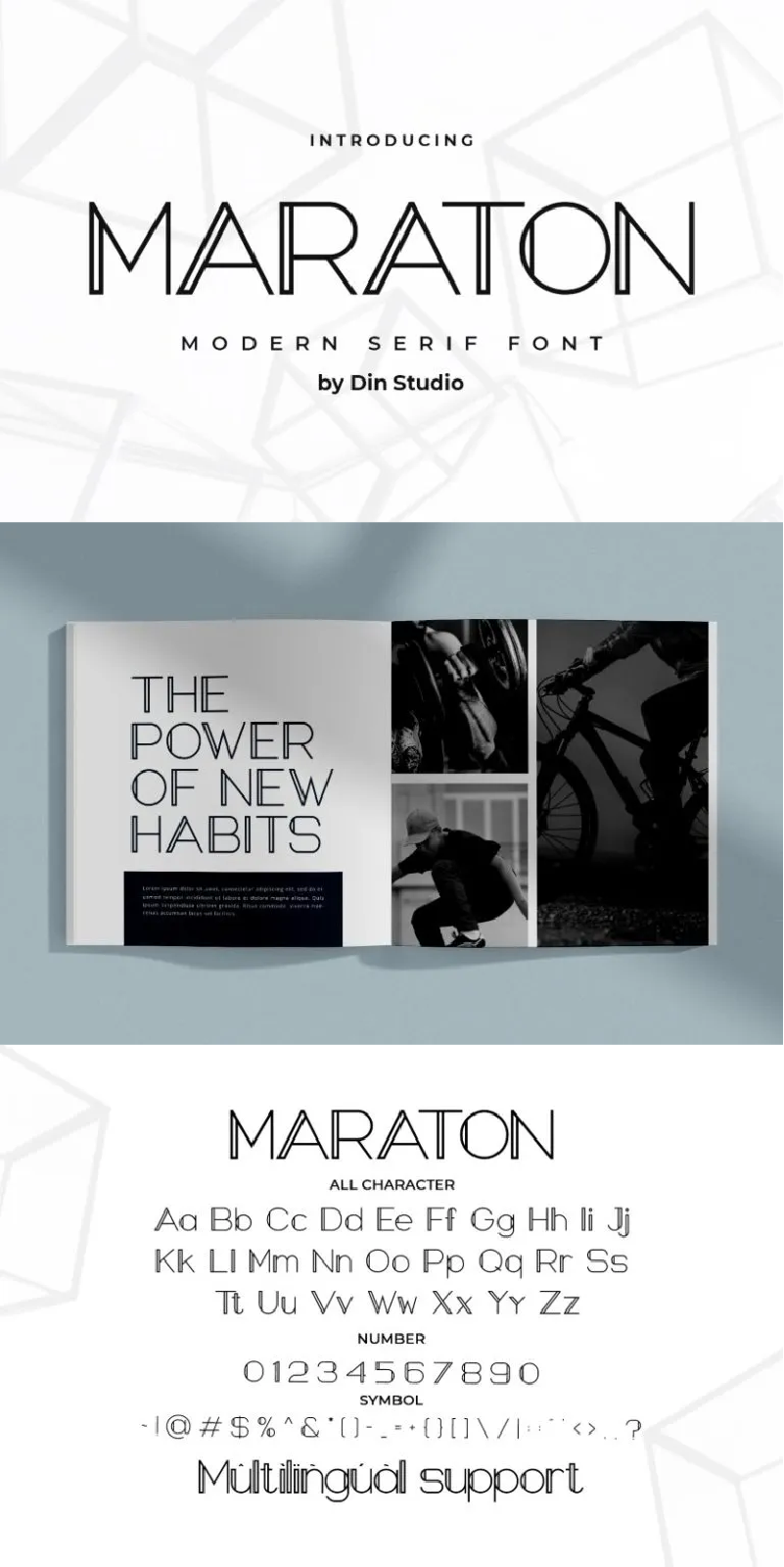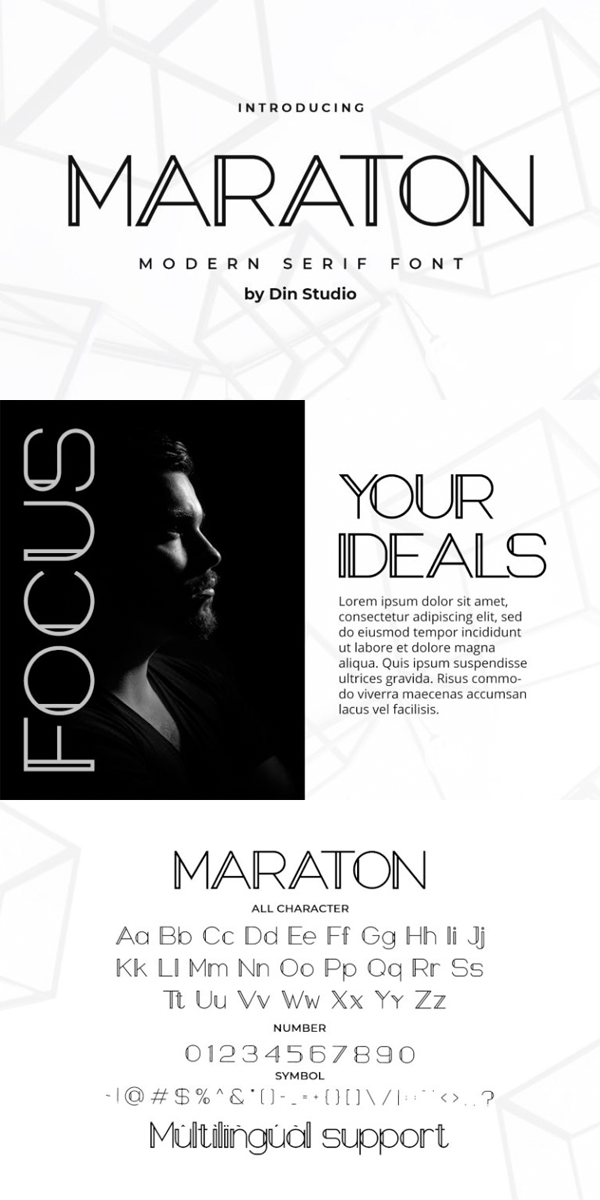
Maraton Font
About Maraton
Maraton, a modern serif font which has always been a great option for you to create unique and compelling designs. It is made for any professional project brandings such as logos, brandings, and quotes. Every letter has a unique and beautiful touch. See the previews above to get some inspiration on how you can use them. Happy Designing!